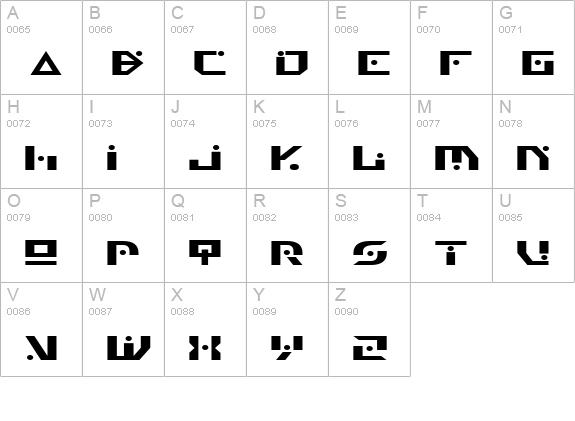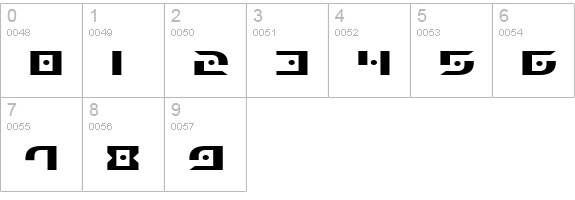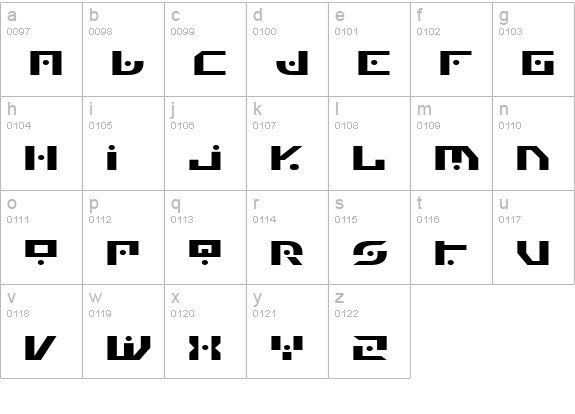
Generation Nth Expanded Font Details
Generation Nth Expanded is a distinctive, extended-width variant in the Generation typeface family \xE2\x80\x94 well suited to design and typography projects.
The Generation Nth Expanded font is a versatile and modern typeface that brings a fresh and dynamic look to any design project. With its sleek lines and bold characters, this font is perfect for grabbing attention and making a statement. Whether you're creating a logo, poster, or website, Generation Nth Expanded will add a touch of sophistication and style. This font is not only aesthetically pleasing but also highly functional, making it suitable for a wide range of design applications. Whether you're looking to create a sleek and professional look or add a touch of creativity to your project, Generation Nth Expanded has got you covered. Best of all, Generation Nth Expanded is completely free to download at FontsMarket.com. So why wait? Add this striking font to your collection today and take your designs to the next level.